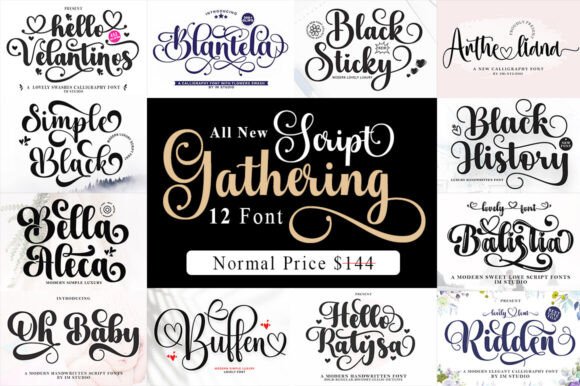
Script Gathering: A Versatile Handwritten Font Bundle
Finding a typeface that balances personality with professionalism is a common challenge. Many designers and creators search for a script font that feels authentic without sacrificing clarity. The Script Gathering bundle addresses this need by offering a curated collection of 12 distinct handwritten fonts, each with its own character and multiple alternative styles. This isn't just another set of similar-looking fonts; it's a toolkit designed for varied creative applications.
Visual Character and Practical Application
Each font within the Script Gathering collection carries a unique personality. Some styles lean towards elegant, flowing scripts ideal for formal invitations, while others present a more casual, friendly tone perfect for social media graphics or blog headers. The visual consistency across the bundle is thoughtful—these fonts feel related but not repetitive. This makes Script Gathering particularly useful for projects requiring multiple typographic voices that still harmonize.
The real value emerges in application. Consider how these handwritten fonts perform across different contexts:
- Brand identity projects: A bakery might use one style for its logo and another for menu descriptions, creating visual variety within a cohesive brand system.
- Editorial design: Magazine layouts benefit from mixing script fonts for pull quotes with cleaner serif or sans serif fonts for body text, establishing clear visual hierarchy.
- Packaging design: Handwritten elements add human appeal to product labels, especially for artisanal or boutique goods where authenticity matters.
- Digital content: Social media graphics, email headers, and website banners gain personality without compromising readability when used appropriately.
Strategic Font Pairing and Readability
Effective typography often involves pairing different typeface styles. Script Gathering works well when combined with simple serif fonts or clean sans serif fonts. The key is contrast—let the handwritten elements stand out against more neutral backgrounds. For instance, using a Script Gathering font for headlines paired with a readable sans serif for body text creates an engaging yet functional layout.
Readability deserves careful attention with any script font. While these handwritten styles excel at conveying emotion and personality, they're best used for shorter text passages. Large headings, single words, or brief phrases allow the font's character to shine without taxing the reader. Testing at actual display sizes helps ensure the alternative styles maintain clarity, especially for digital applications where screen resolution varies.
Evaluating Fit for Your Projects
Before selecting any premium font, consider your project's specific needs. Script Gathering suits contexts where human touch and expressiveness are valued. Wedding stationery, greeting cards, inspirational quotes, and festive event materials naturally benefit from handwritten aesthetics. For commercial applications like advertising or corporate branding, assess whether the font's personality aligns with your audience's expectations.
Practical evaluation involves several steps:
- Test multiple styles: Experiment with the various alternative characters included in each font. Swashes, ligatures, and stylistic sets can dramatically change the font's appearance.
- Assess scalability: View the fonts at both large and small sizes to ensure they maintain their intended impact across different applications.
- Consider context: A handwritten font that works beautifully on a wedding invitation might feel inappropriate for a financial report. Match the font's tone to your project's purpose.
Enhancing Creative Work with Thoughtful Typography
The Script Gathering bundle represents more than just decorative design assets. When used strategically, these fonts contribute to visual storytelling. They can soften a brand's image, add warmth to marketing materials, or create emotional connections in personal projects. The collection's variety allows for experimentation—trying different styles until finding the perfect match for each specific application.
For content creators and small business owners, this typeface collection offers practical versatility. A blogger might use one style for post titles and another for pull quotes, creating visual rhythm throughout their site. An entrepreneur could develop a cohesive look across business cards, website headers, and social media posts using complementary styles from the same bundle.
Ultimately, typography choices influence how audiences perceive your work. A well-chosen creative font like those in Script Gathering can elevate a project from ordinary to memorable, provided it's used with intention and understanding of its strengths. The collection's range of styles—from delicate to bold, formal to casual—ensures there's likely a suitable option for various creative needs, making it a practical resource for designers and creators at different skill levels.